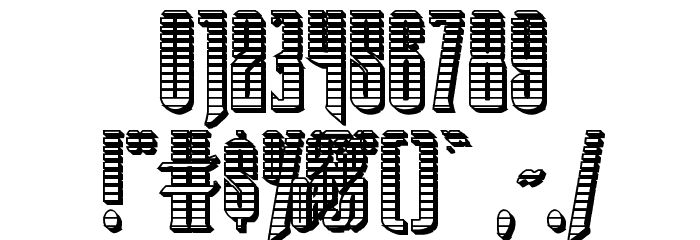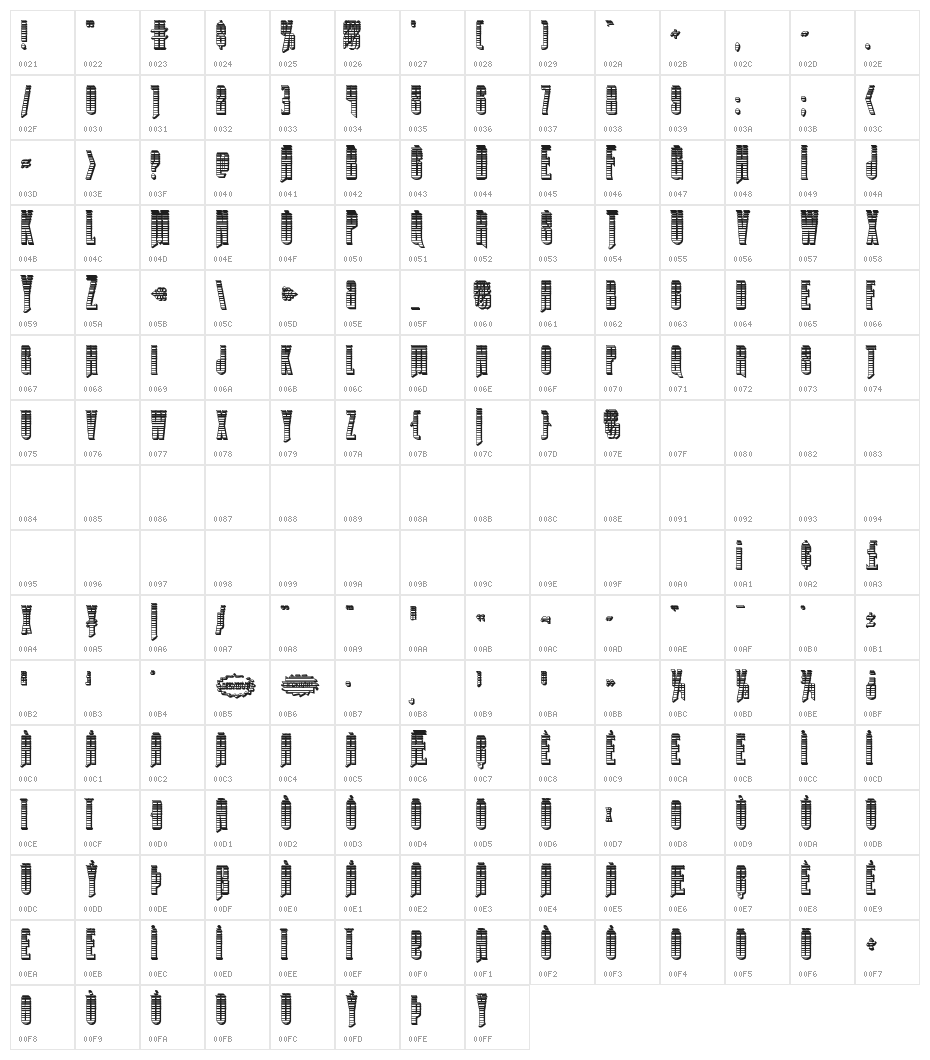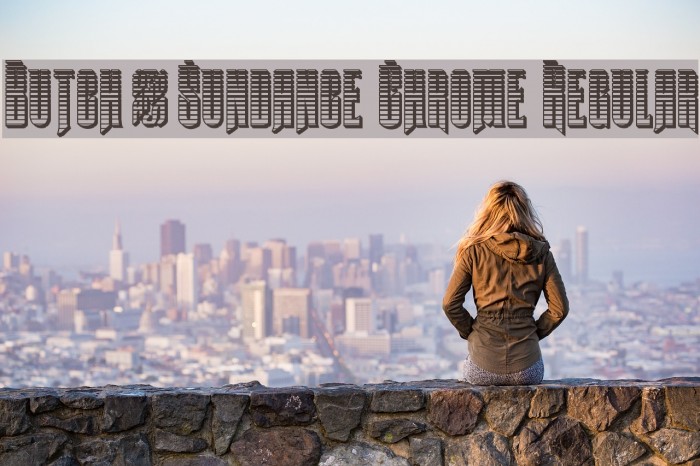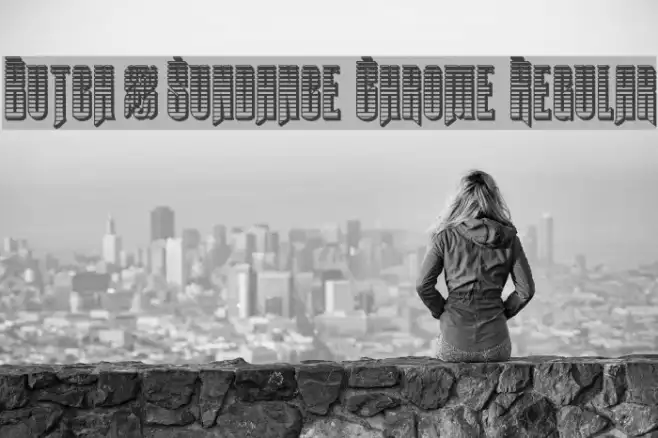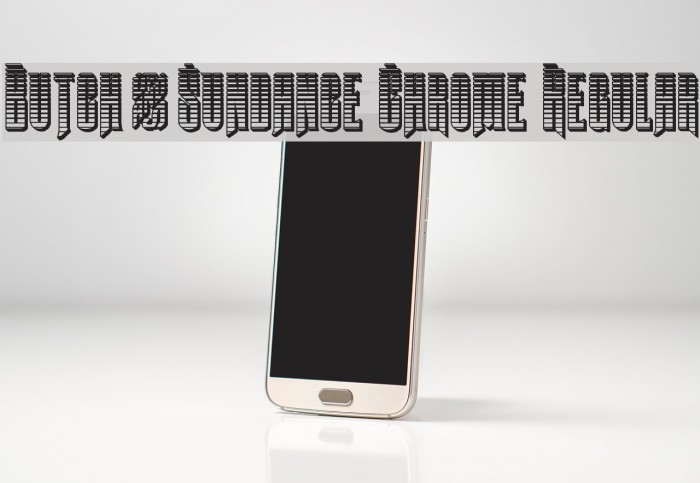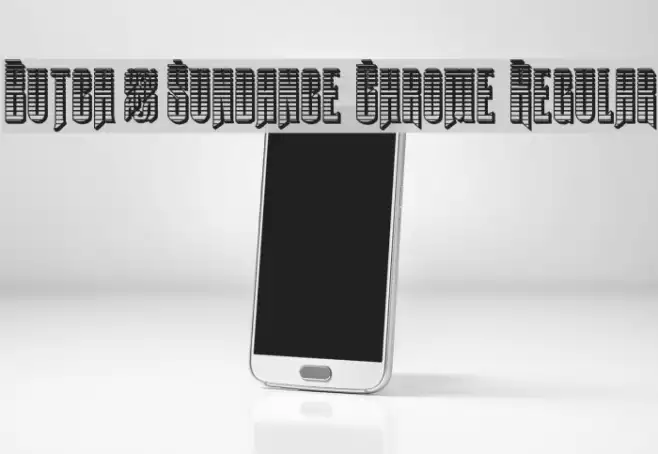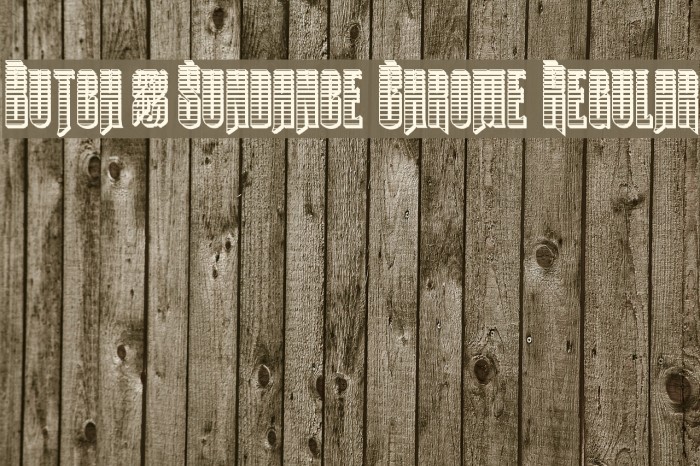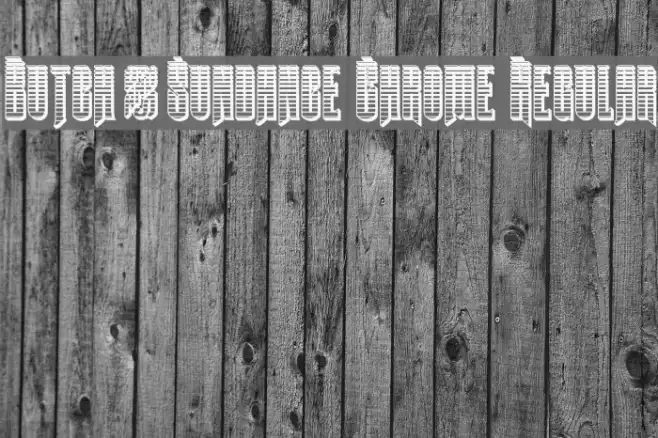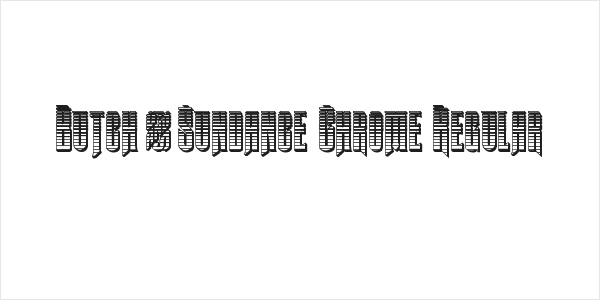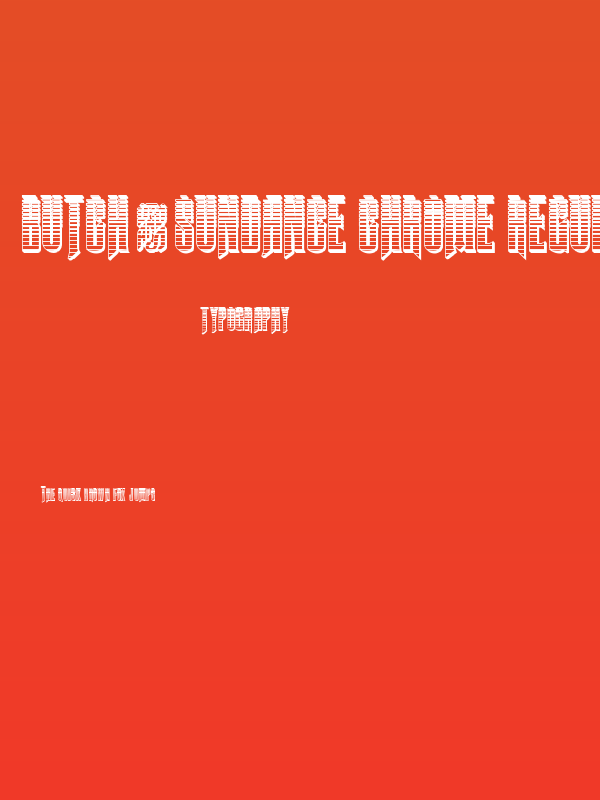
Butch & Sundance Chrome Regular Font
This font features a bold, decorative style with a distinct three-dimensional effect. Each character is designed with horizontal stripes that create a layered, shadowed appearance, giving it a chrome-like finish. The uppercase and lowercase letters maintain a consistent width, with sharp, angular edges that add to its striking visual impact. The numerals and special characters follow the same design principles, ensuring uniformity across all glyphs. This font is ideal for making a statement, with its eye-catching design that stands out in any context.
| Proposed Projects | Perfect for posters, logos, and headlines that require a bold, eye-catching typeface. |